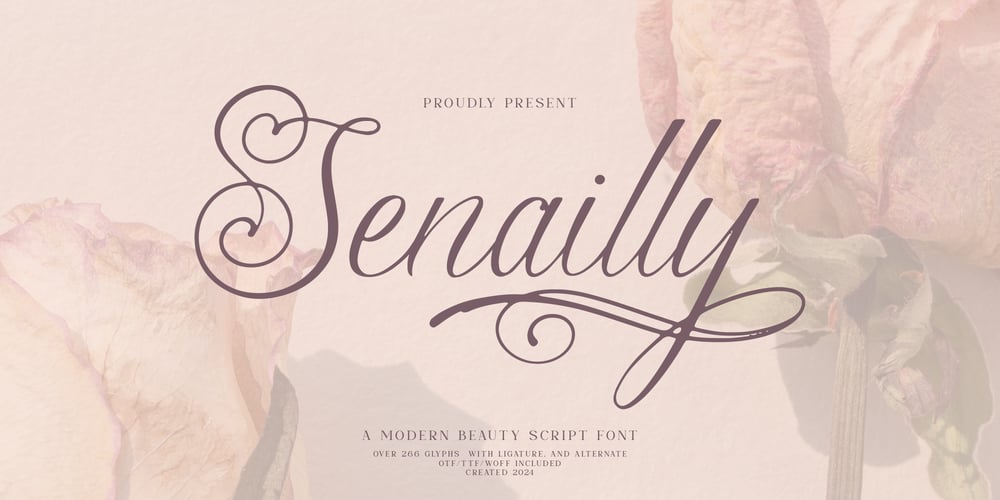
Senailly
Senailly font
Senailly Font Family was designed by Dede Nugraha and published by Denustudio. Senailly contains 2 styles and family package options. Senailly | Modern Beauty Script, from Denustudios, suitable for any projects such as: logos, branding projects, homeware designs, product packaging, mugs, quotes, posters, shopping bags, t-shirts, book covers, name card, invitation cards, greeting cards, label, photography, watermark, special events, and all your other lovely projects that need a Modern Beauty Script taste.===========================================================================What’s Included : Regular and Italic Web Font Standard glyphs Alternate and Ligature Works on PC & Mac Simple installations Accessible in the Adobe Illustrator, Adobe Photoshop, Adobe InDesign, even work on Microsoft Word and Other Software. PUA Encoded Characters – Fully accessible without additional design software. Fonts include multilingual support Hope you enjoy with our font!